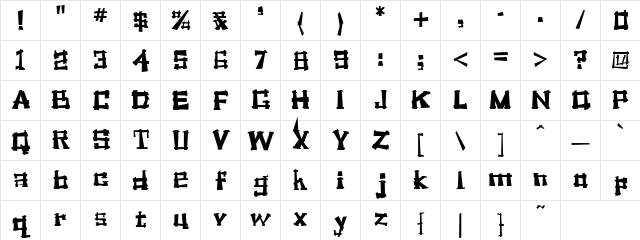
SoulManure 2 Regular
Design Context for SoulManure 2
SoulManure 2 is a composed and adaptable typeface that performs quietly and consistently across a wide range of design contexts.
Pro Tip: Use SoulManure 2 in both headline and body roles to test its range before committing to a single application.